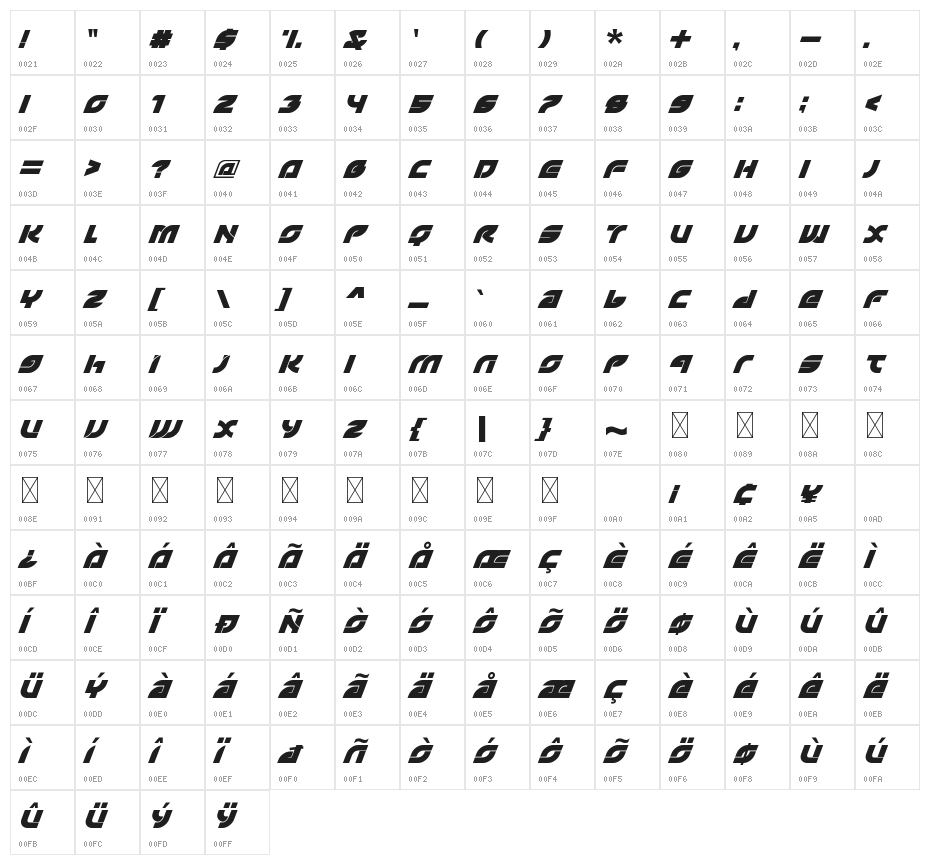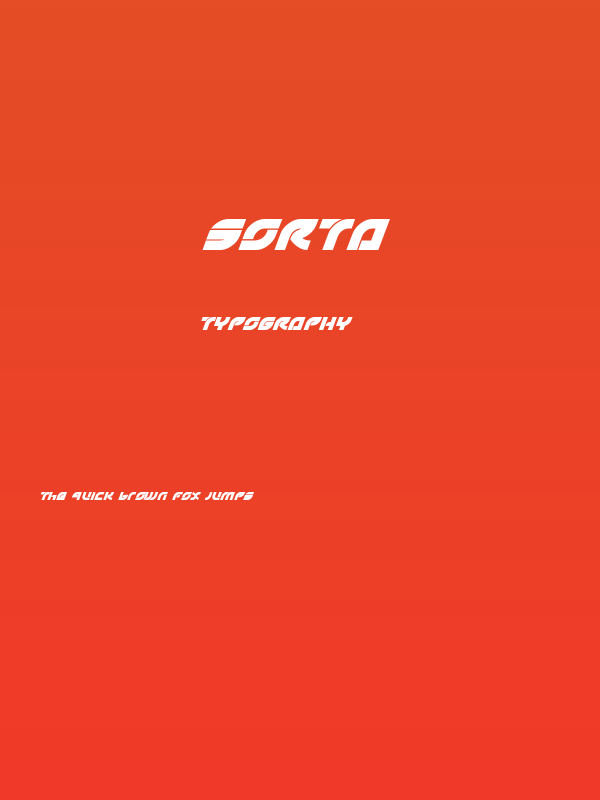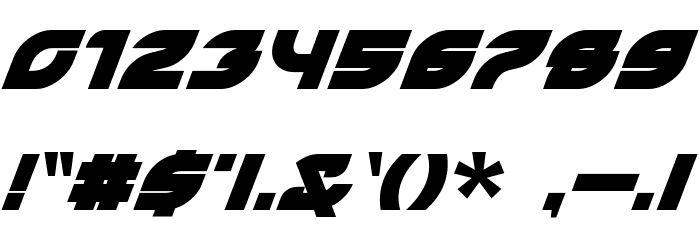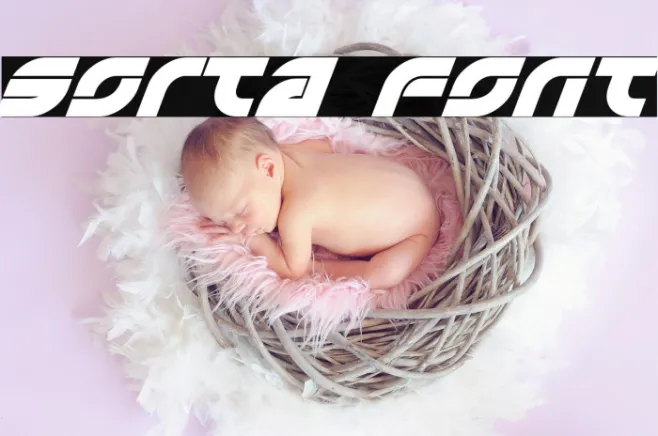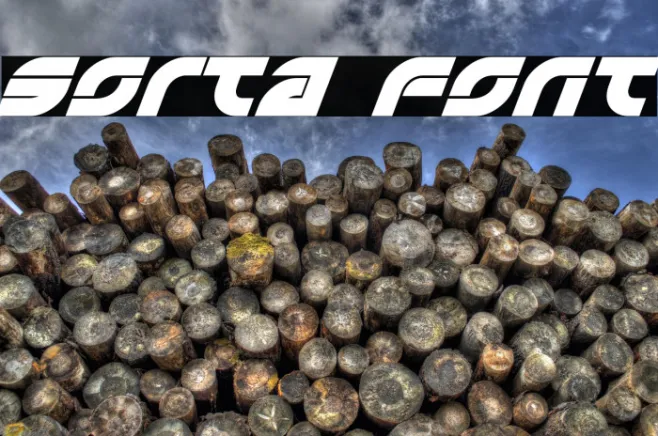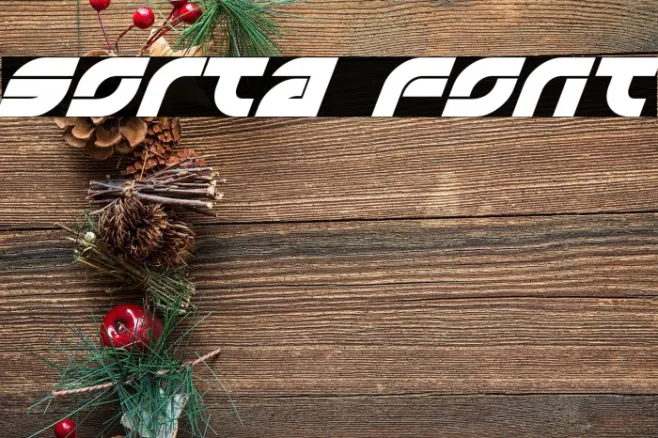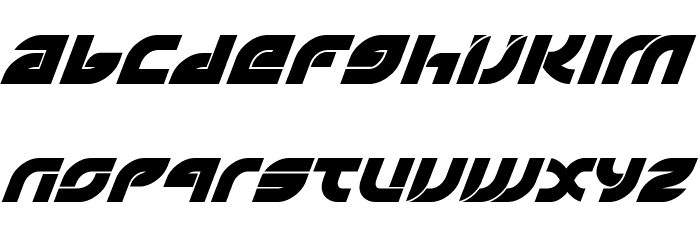
Sorta Font
Sorta Description
This font features a bold, futuristic design with sharp, angular edges and a distinct slant, giving it a dynamic and forward-moving appearance. The characters are tightly spaced, enhancing its compact and impactful look. The uppercase and lowercase letters maintain a consistent style, with a strong emphasis on geometric shapes and a high degree of uniformity. The numbers and special characters follow the same design principles, ensuring a cohesive visual identity. This font's high contrast in stroke thickness adds to its striking presence, making it ideal for attention-grabbing applications.
| Overall Style | Futuristic |
| Proposed Projects | Ideal for sci-fi themed projects, technology branding, video game titles, and dynamic poster designs. |